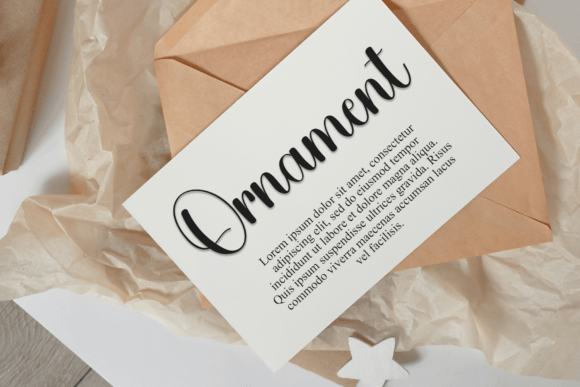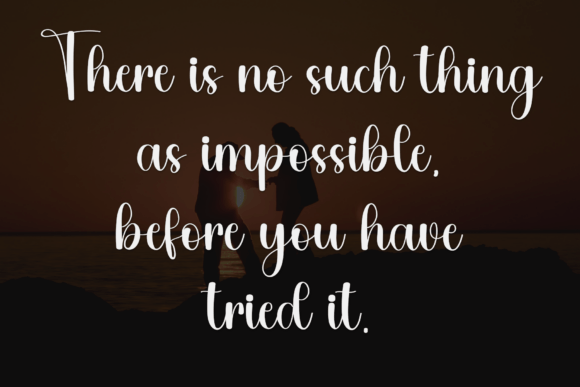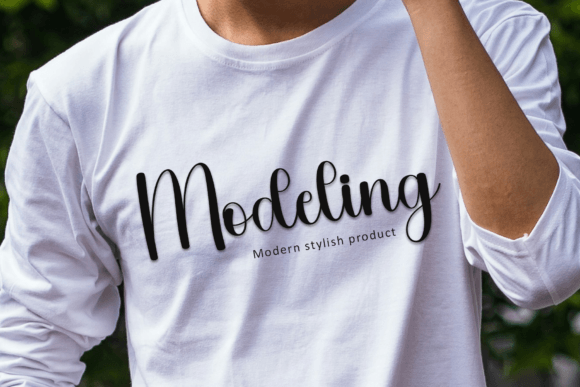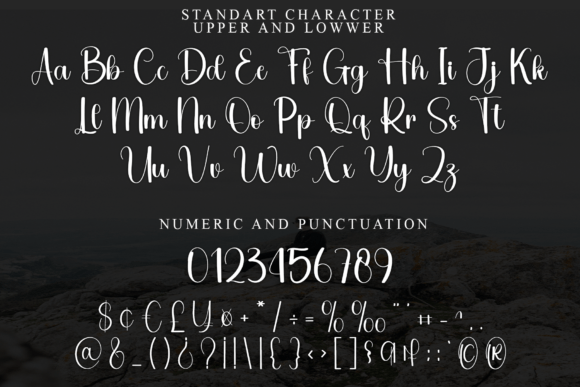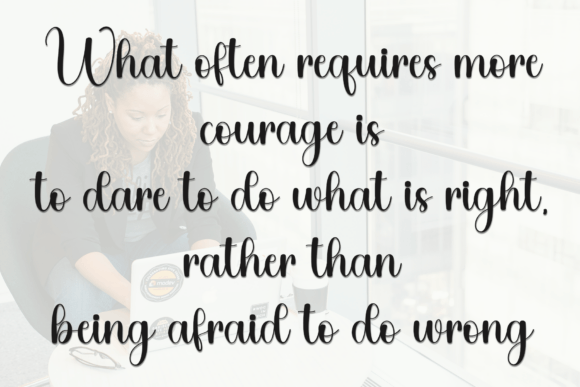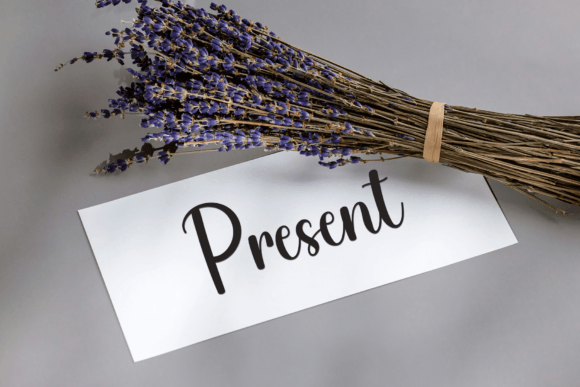
Introduction to Santa Village Font
Have you ever stumbled upon a font that instantly sparks creativity and makes you envision a beautiful design project? For many designers, this is exactly what happens when they lay eyes on the Santa Village Font. Its soft, unique touch and distinctive strokes give it a special character that’s hard to resist.
As a valuable resource for designers, the Santa Village Font is perfect for a wide range of creative projects, from digital art to crafts and even website design. With its high-quality design and transparent background, it’s ideal for use on various applications, including Windows and open-source platforms. Whether you’re working on a personal project or a client’s request, this free download is sure to enhance your designs and make them appealing to a broad audience.
With its unique style and versatility, the Santa Village Font is an excellent addition to any designer’s toolkit. In this article, we’ll delve into the world of this beautiful font and explore its features, uses, and benefits for designers.
Key Features of Santa Village Font
- High-quality design resource ideal for creative projects, including holiday and winter-themed designs.
- Features a transparent background, making it easy to use in a variety of design contexts.
- Unique, festive design with a playful and whimsical feel, perfect for adding a touch of holiday magic to your project.
- High-resolution design, suitable for use in print and digital applications up to 300 DPI.
- Perfect for designers, artists, and crafters looking for a high-quality design resource to elevate their creative project.
Honest Review: Santa Village Font
I recently had the chance to work with the Santa Village Font, and I must say it’s been a delightful experience. This font is perfect for any creative project that requires a festive and playful touch. I particularly love how it looks on a transparent background, making it easy to combine with other design elements.
- ✨ High-quality design: The Santa Village Font is incredibly detailed and well-designed, making it a great addition to any project.
- ✨ Versatile: This font can be used for a variety of projects, from children’s books to holiday-themed designs.
However, I did encounter a few limitations. The font can be quite busy, making it difficult to read at larger sizes. Additionally, the font file size is a bit large, which can slow down performance on slower computers.
Overall, I’m impressed with the Santa Village Font. It’s a great design resource for anyone looking to add a festive touch to their project. Just be aware of the potential limitations and use it wisely. If you’re looking for a high-quality, free font for your creative project, I’d definitely recommend giving the Santa Village Font a try.
Tips for Getting the Most Out of the Santa Village Font
To get the most out of the Santa Village Font, try using it in combination with other design elements, such as graphics and images. You can also experiment with different font sizes and styles to create a unique and eye-catching design.
The Santa Village Font is perfect for a variety of creative projects, including holiday cards, party invitations, and gift tags. Its transparent background and high-quality design make it a great choice for any project that requires a festive and fun touch.
Q: Can I use the Santa Village Font with a transparent background?
Yes, the Santa Village Font is a vector-based font, which means you can easily use it with a transparent background. This feature is particularly useful when creating designs that require a subtle look.